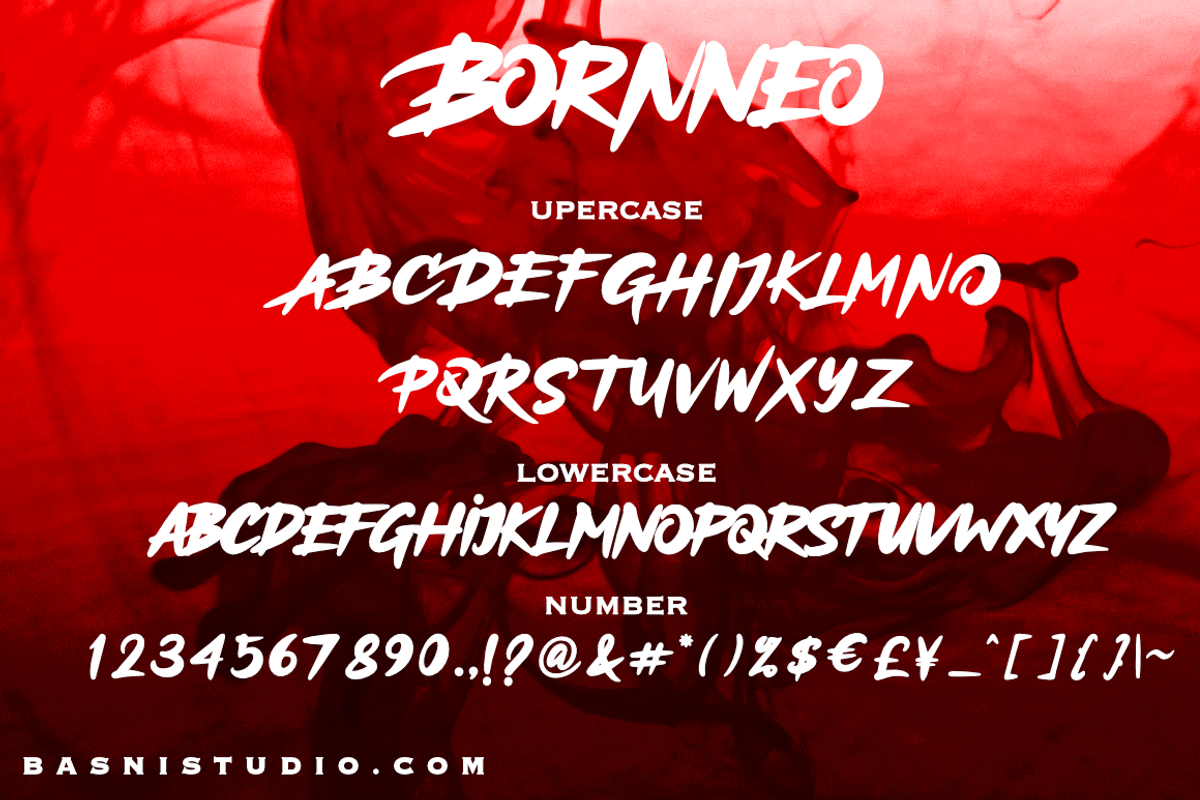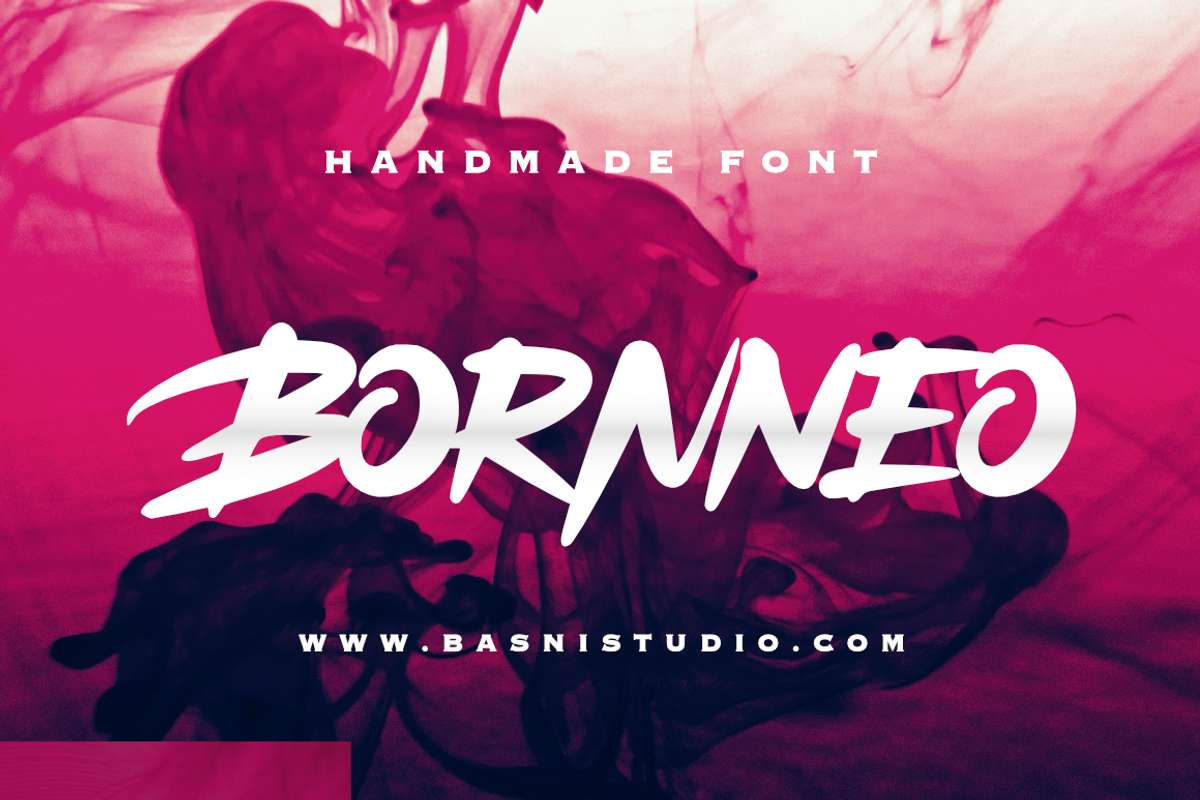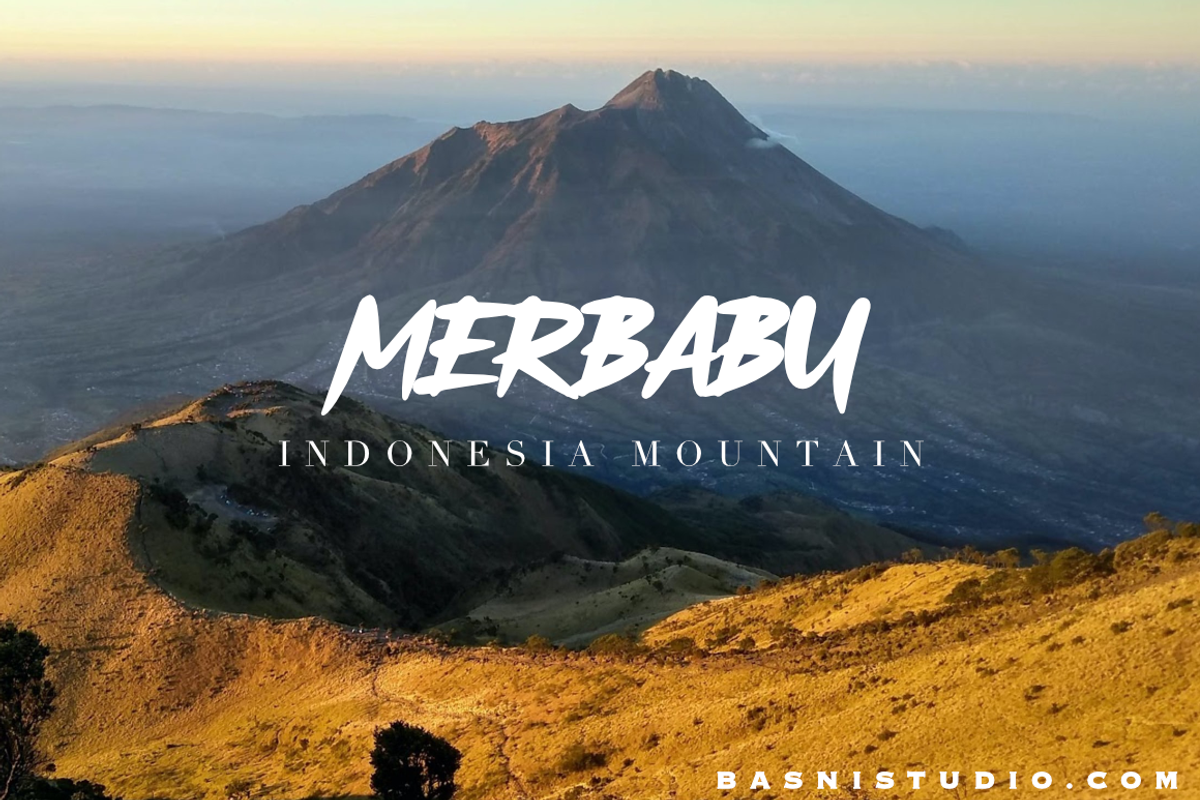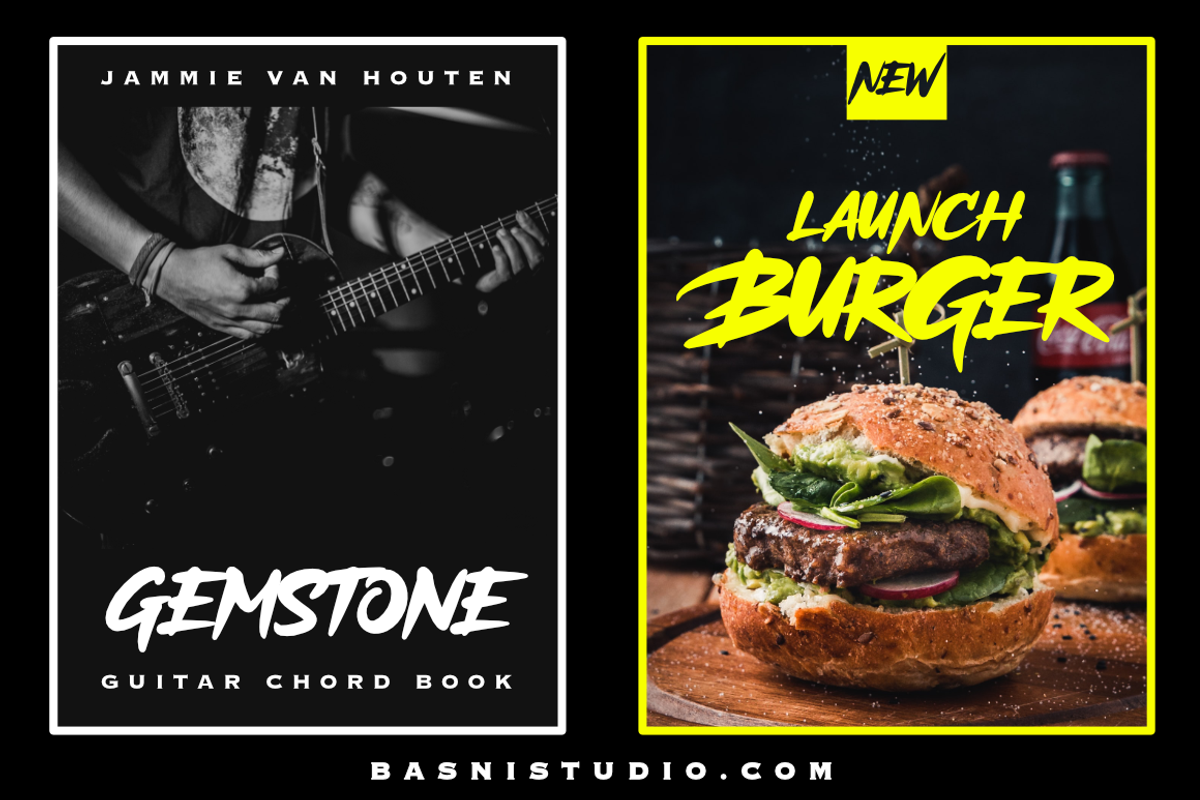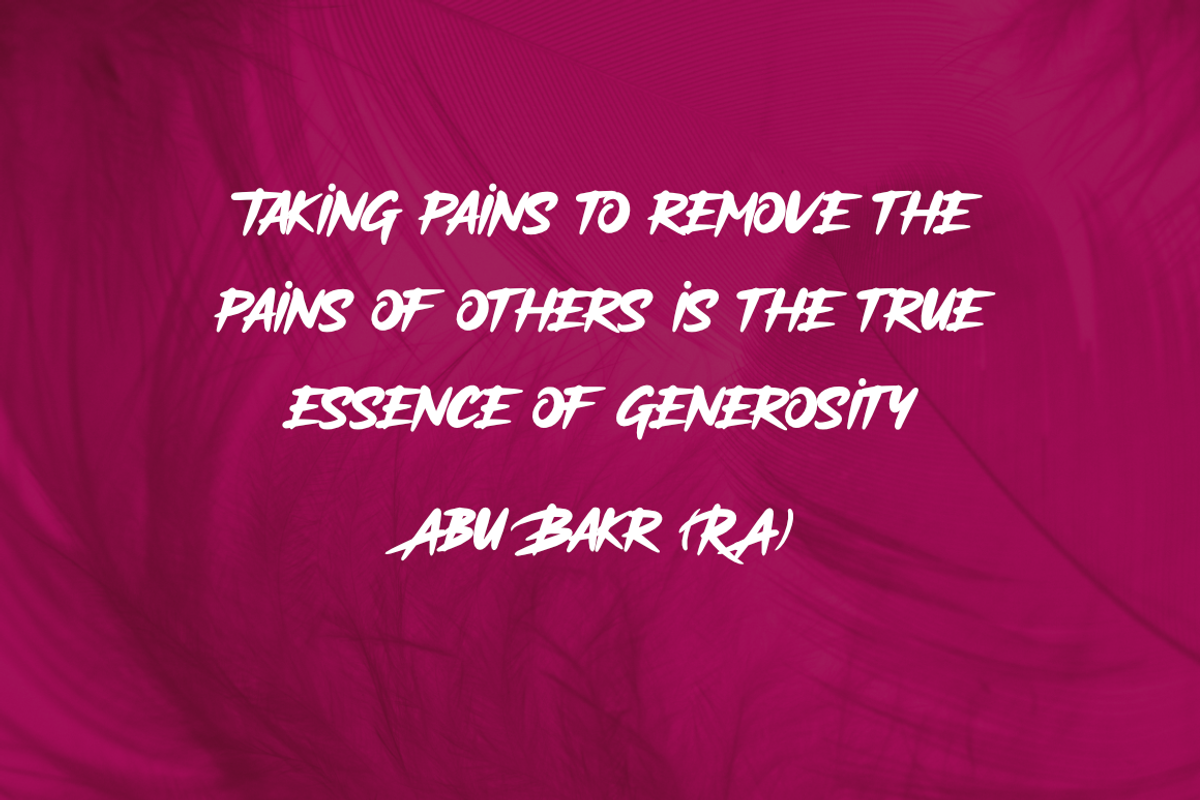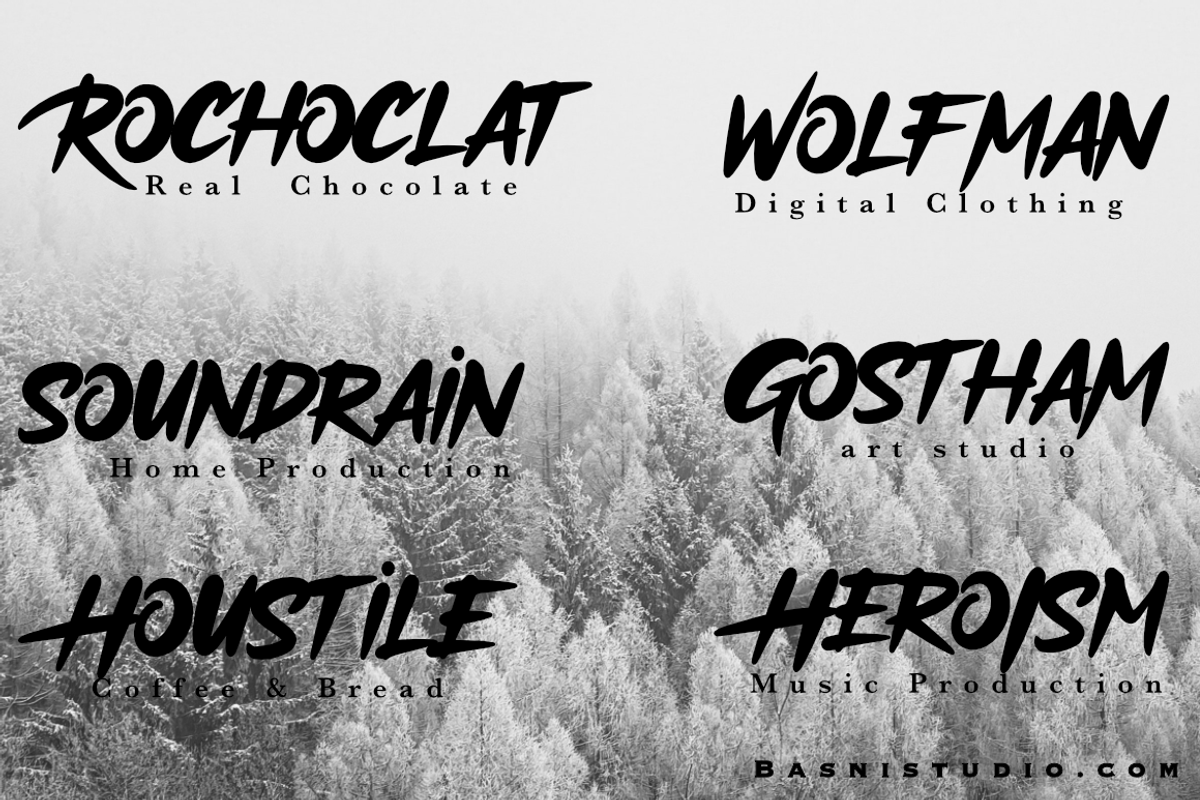
Bornneo – Handmade Display Font
Introducing Bornneo, a Handmade Display Font,
Bornneo is perfect for branding, websites, and editorial designs. Includes all upper and lower case letters, punctuation, What’s include: